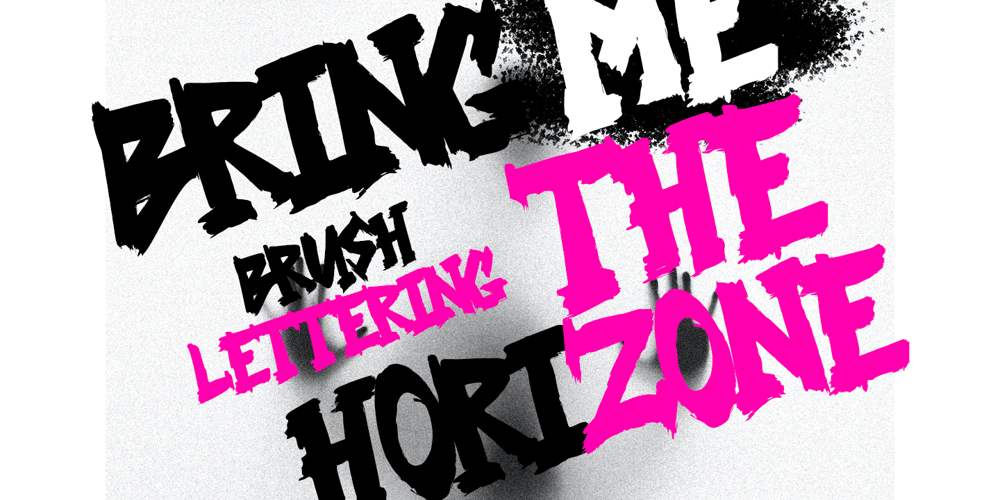
Bring Me The Horizon Font Family was designed by Andri Kurniawan and published by Struggle Studio. Bring Me The Horizon contains 1 styles and family package options. BringMeTheHorizon is a modern handwritten display font. With Brush strokes, scribbled characters. To give you extra creative work. BringMeTheHorizon font supports multilingualism of more than 100+ languages. This font is great for logo designs, social media, Movie Titles, Book Titles, short text even long text letters and great for your secondary text font in sans or serif. Create stunning works with the BringMeTheHorizon font.